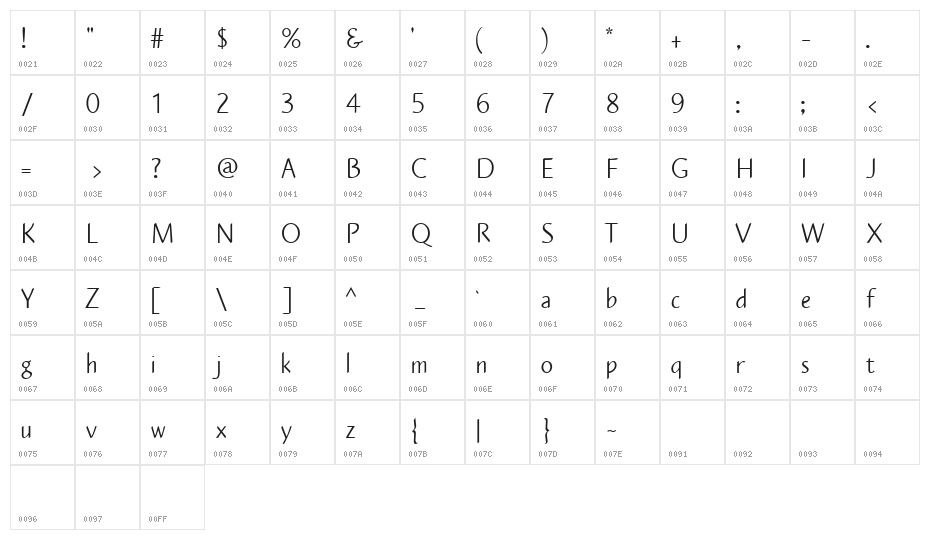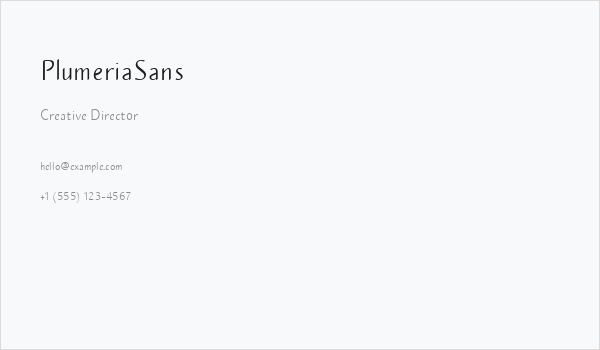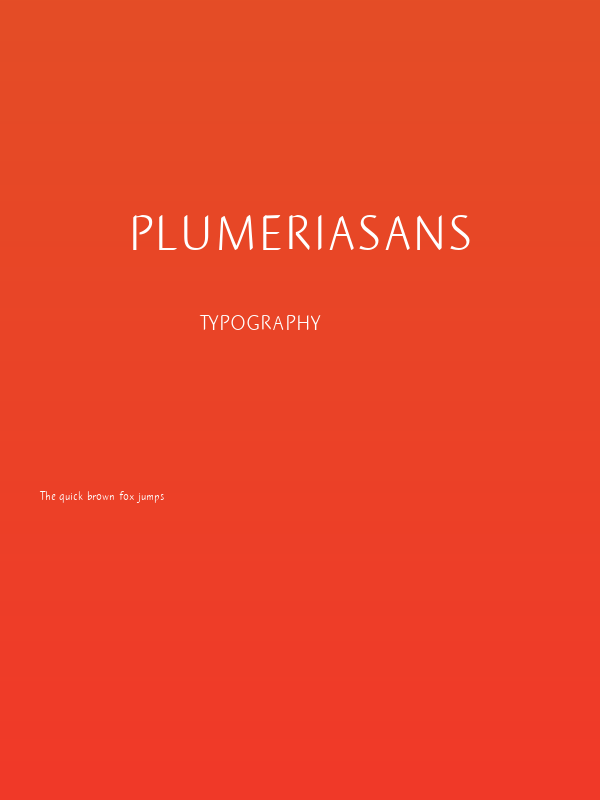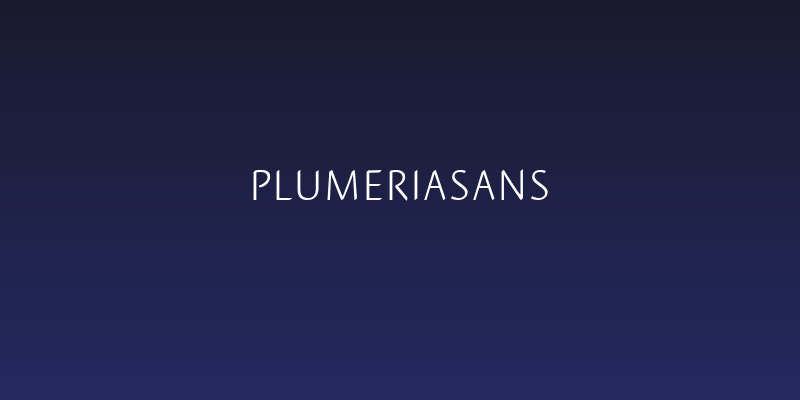
PlumeriaSans Font
PlumeriaSans Description
This font features a clean and modern sans-serif design, characterized by its simplicity and elegance. The letters are well-proportioned with a slight geometric influence, offering a harmonious balance between curves and straight lines. The uppercase letters are bold and assertive, while the lowercase letters maintain a friendly and approachable appearance. The numerals are clear and easy to read, making them suitable for various applications. The special characters are distinct and maintain the overall aesthetic of the font, ensuring consistency across all glyphs.